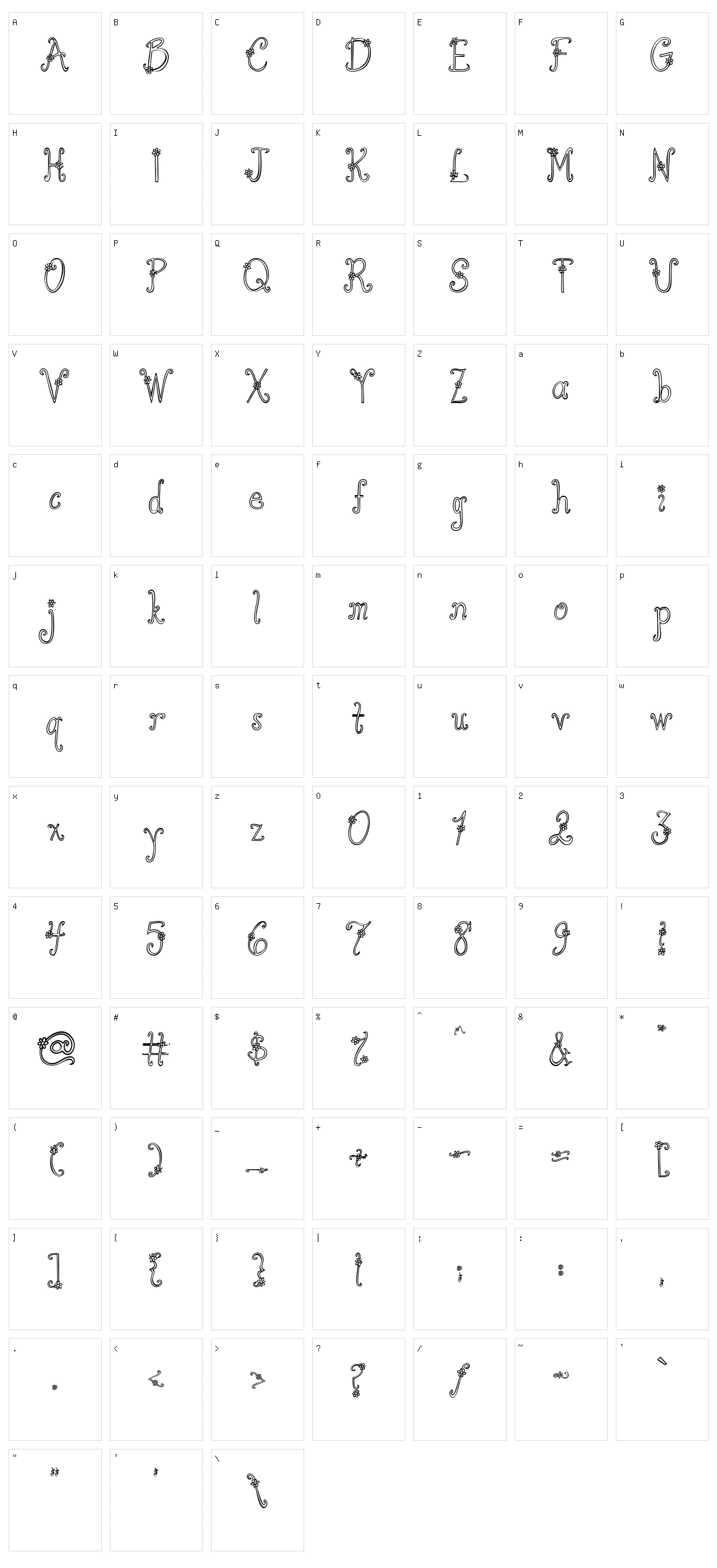
Austie Bost You Wear Flowers, Hollow & Solid
Description: Austie Bost You Wear Flowers is a girly, springy, handwritten font, designed for the light hearted.